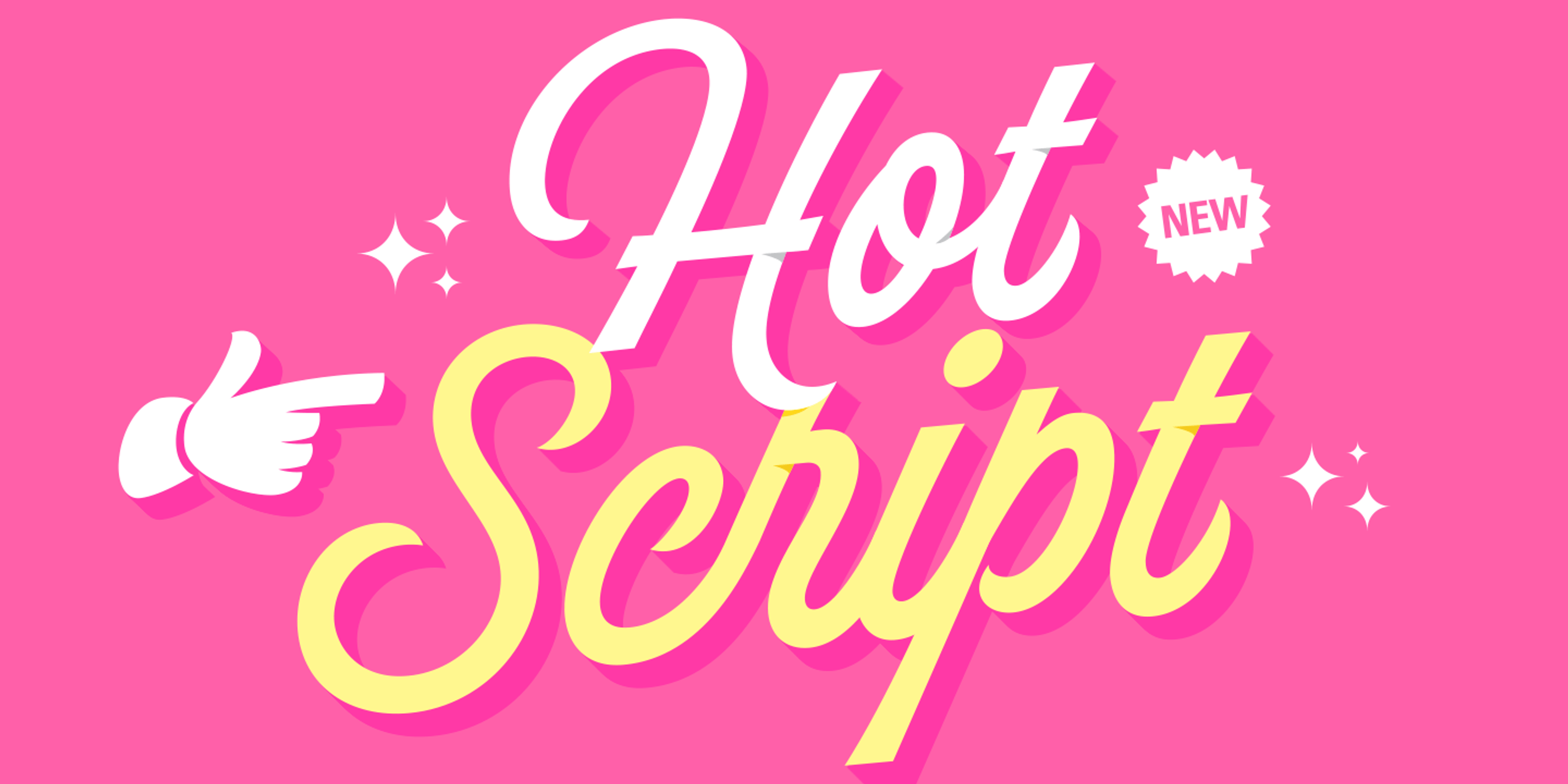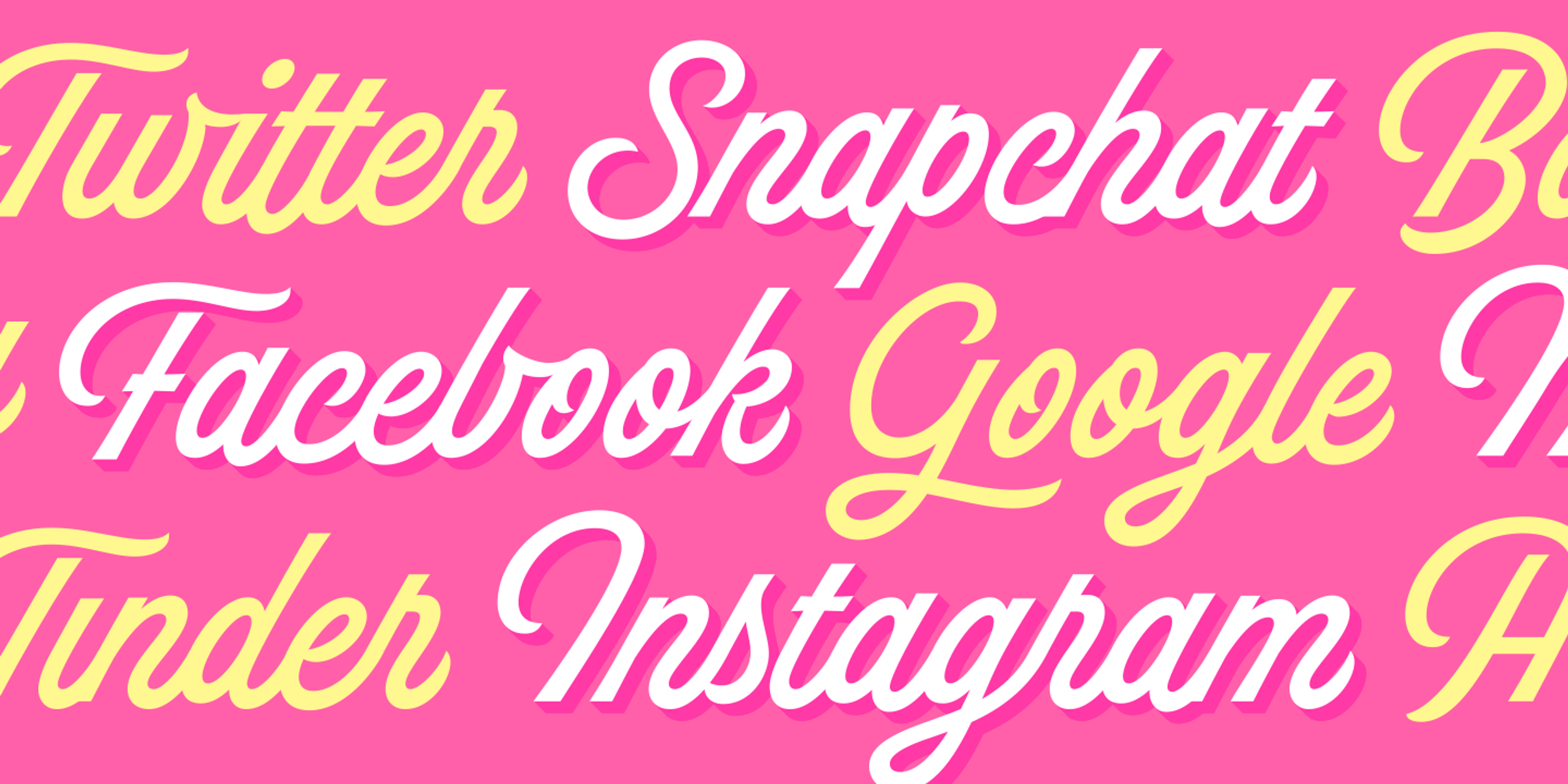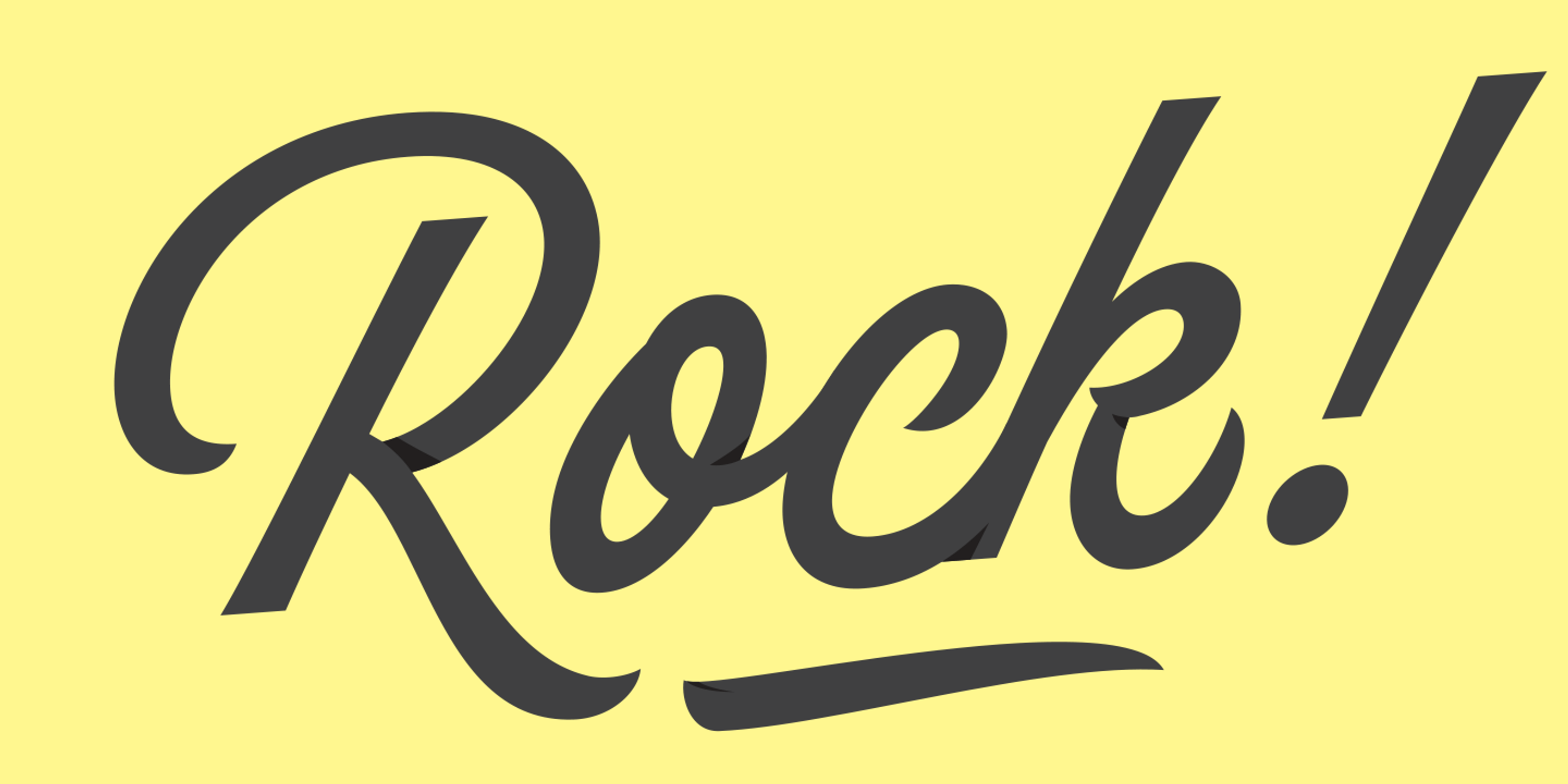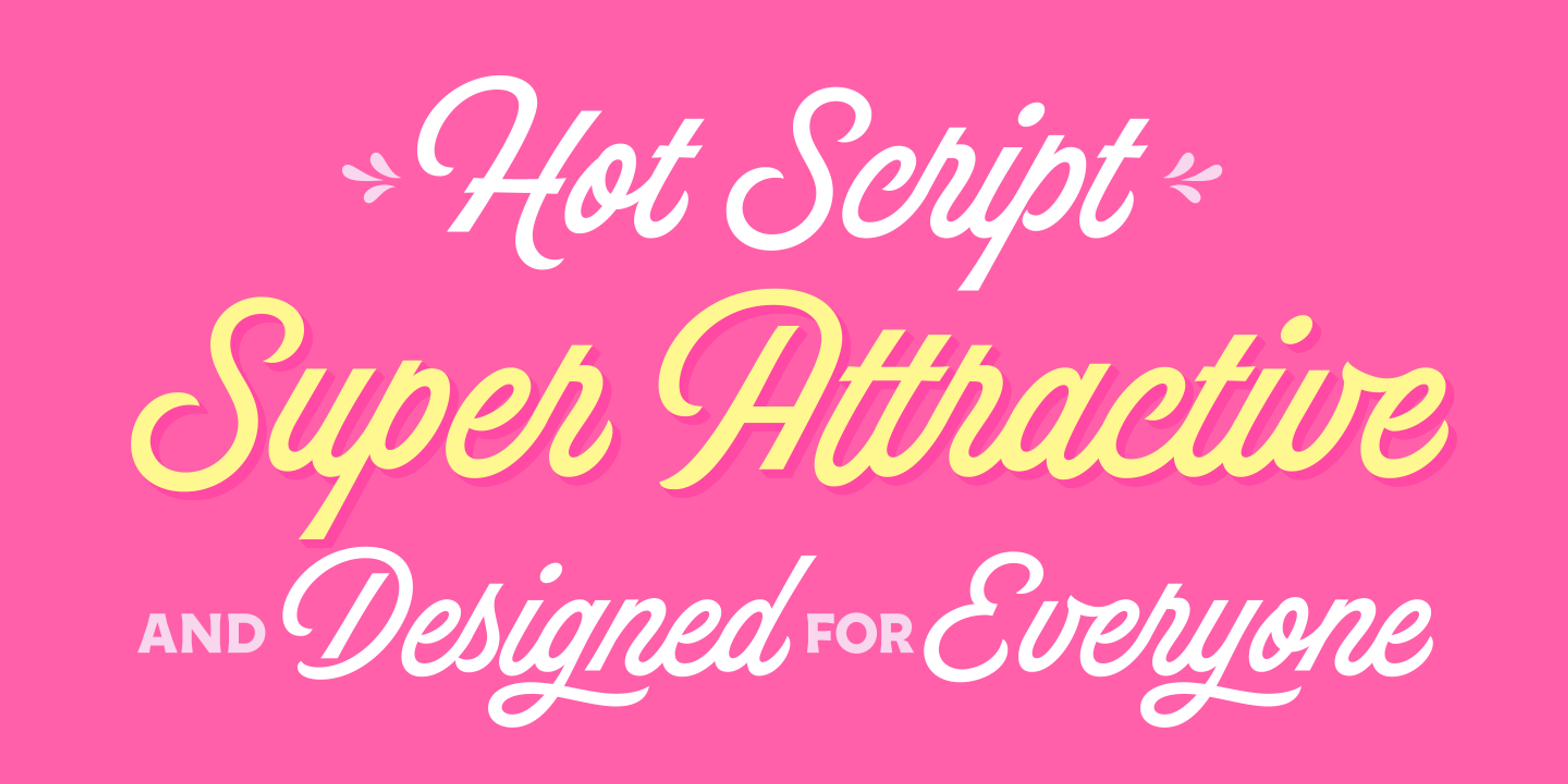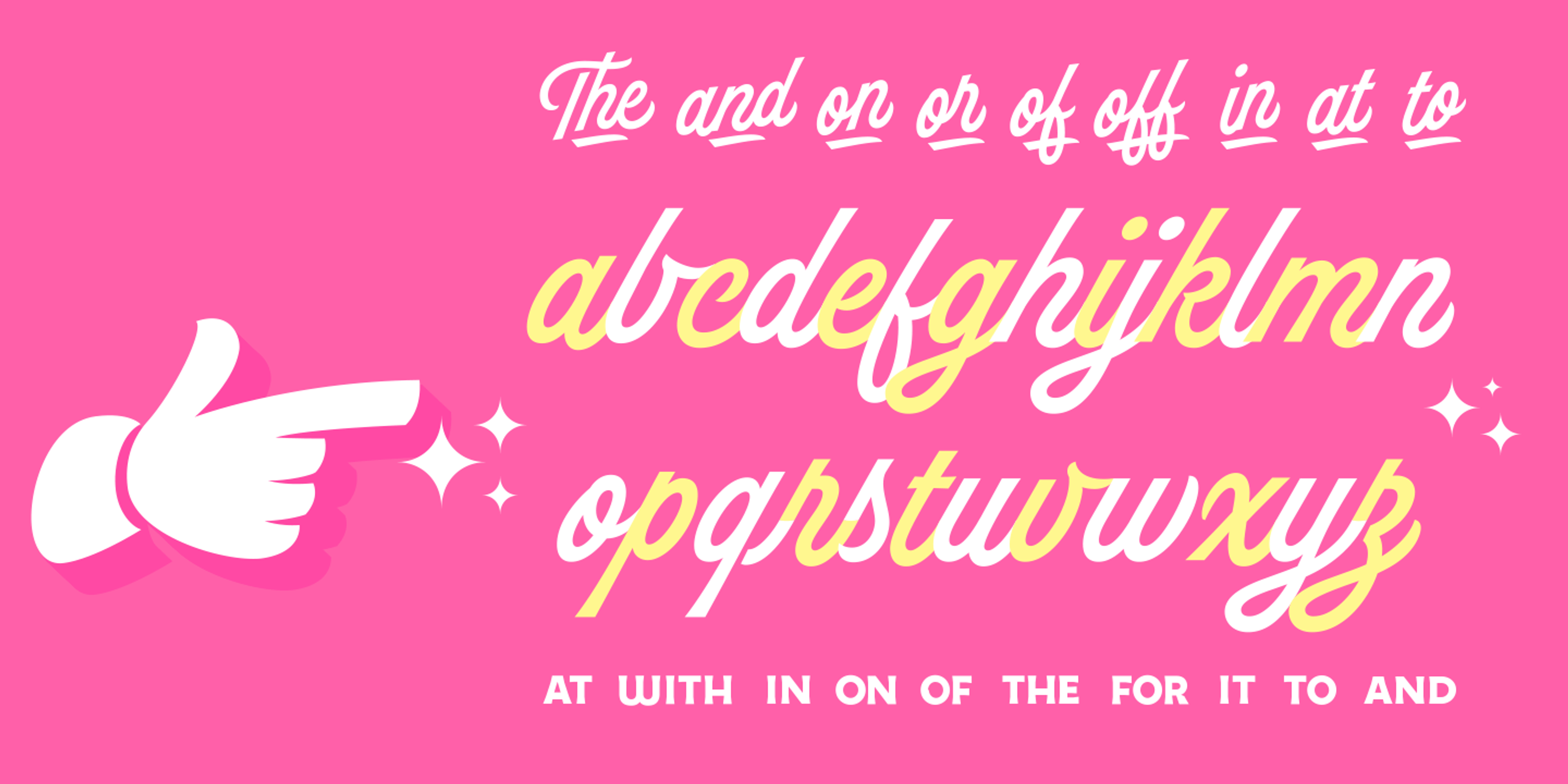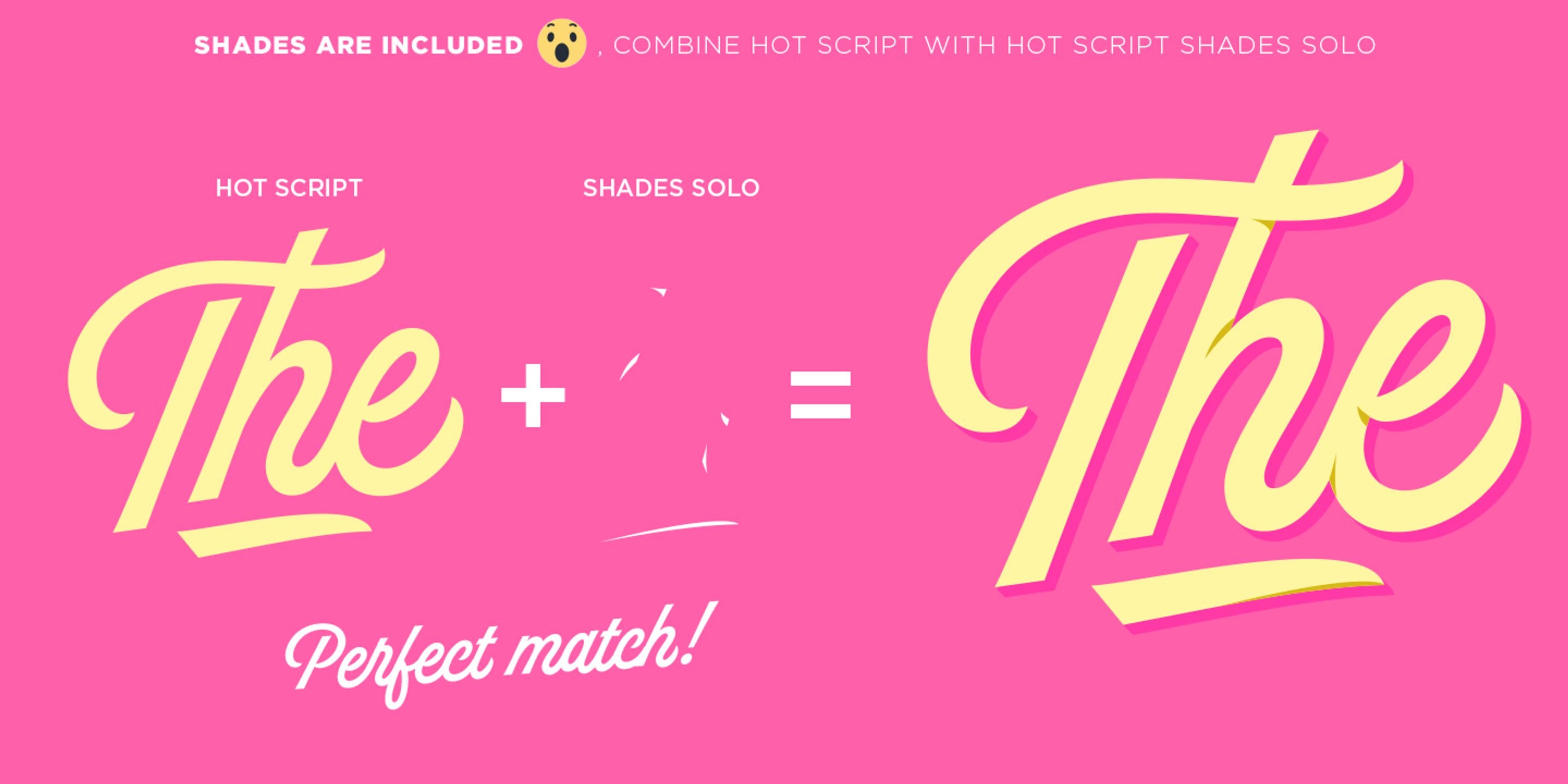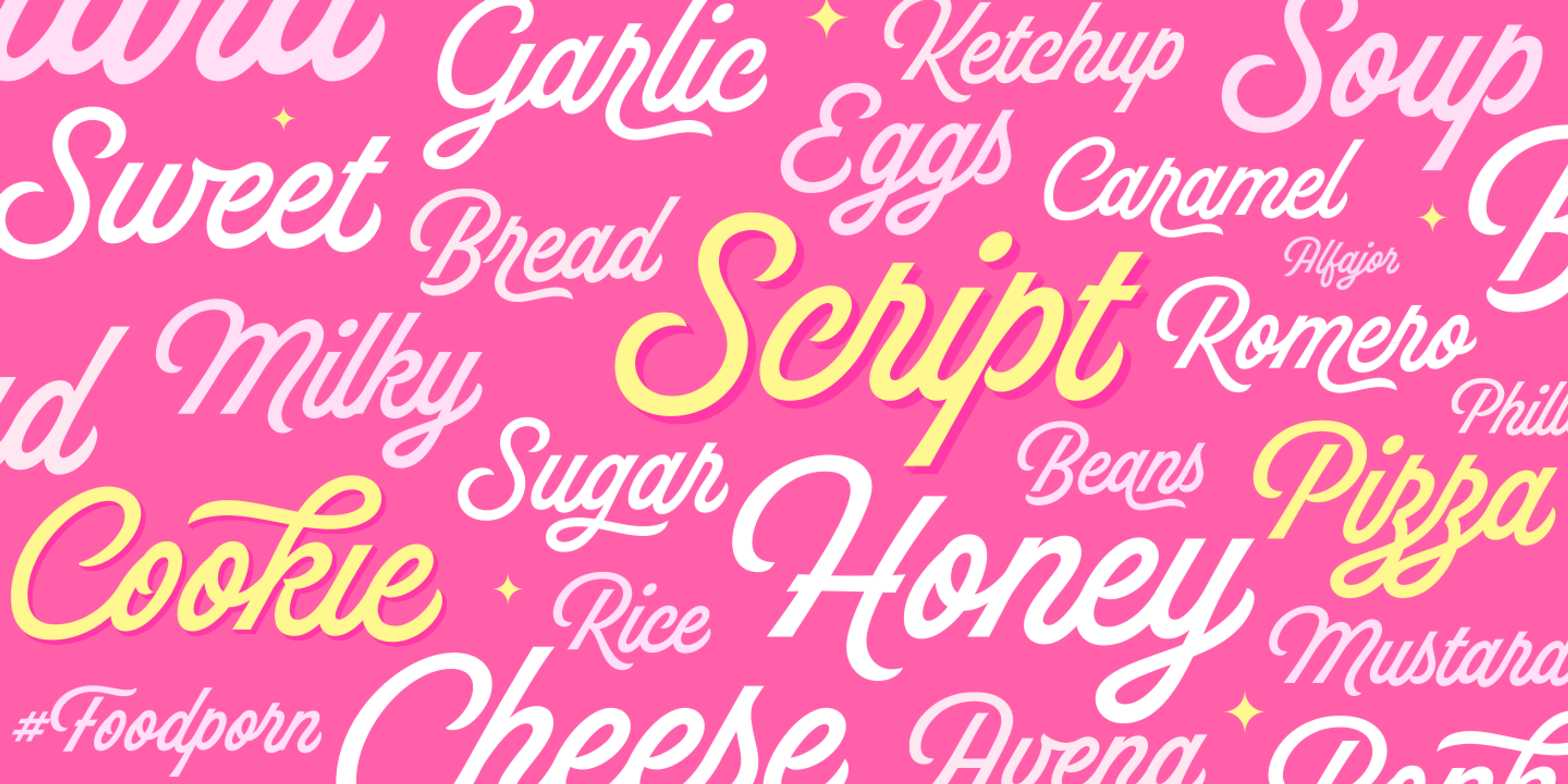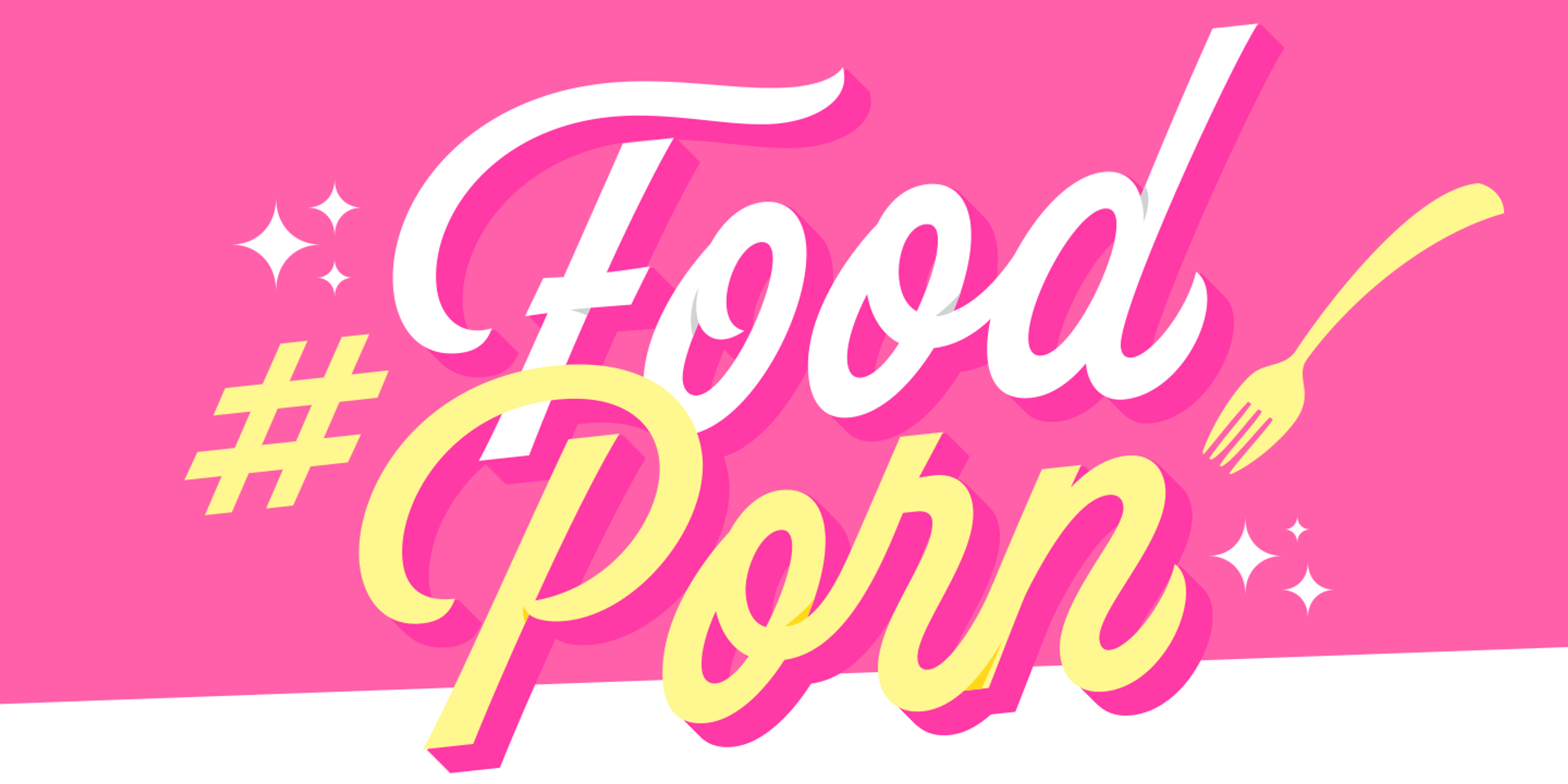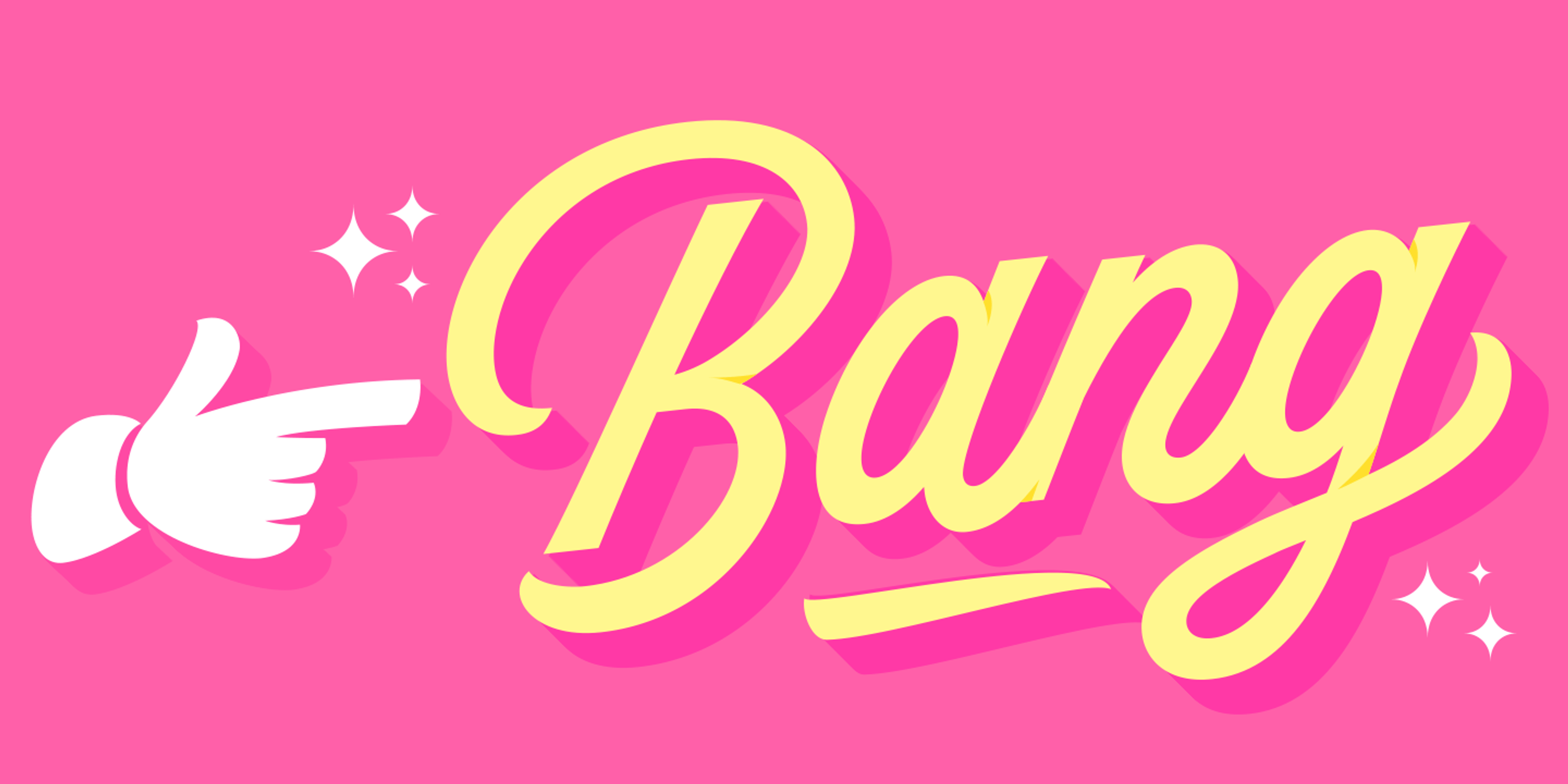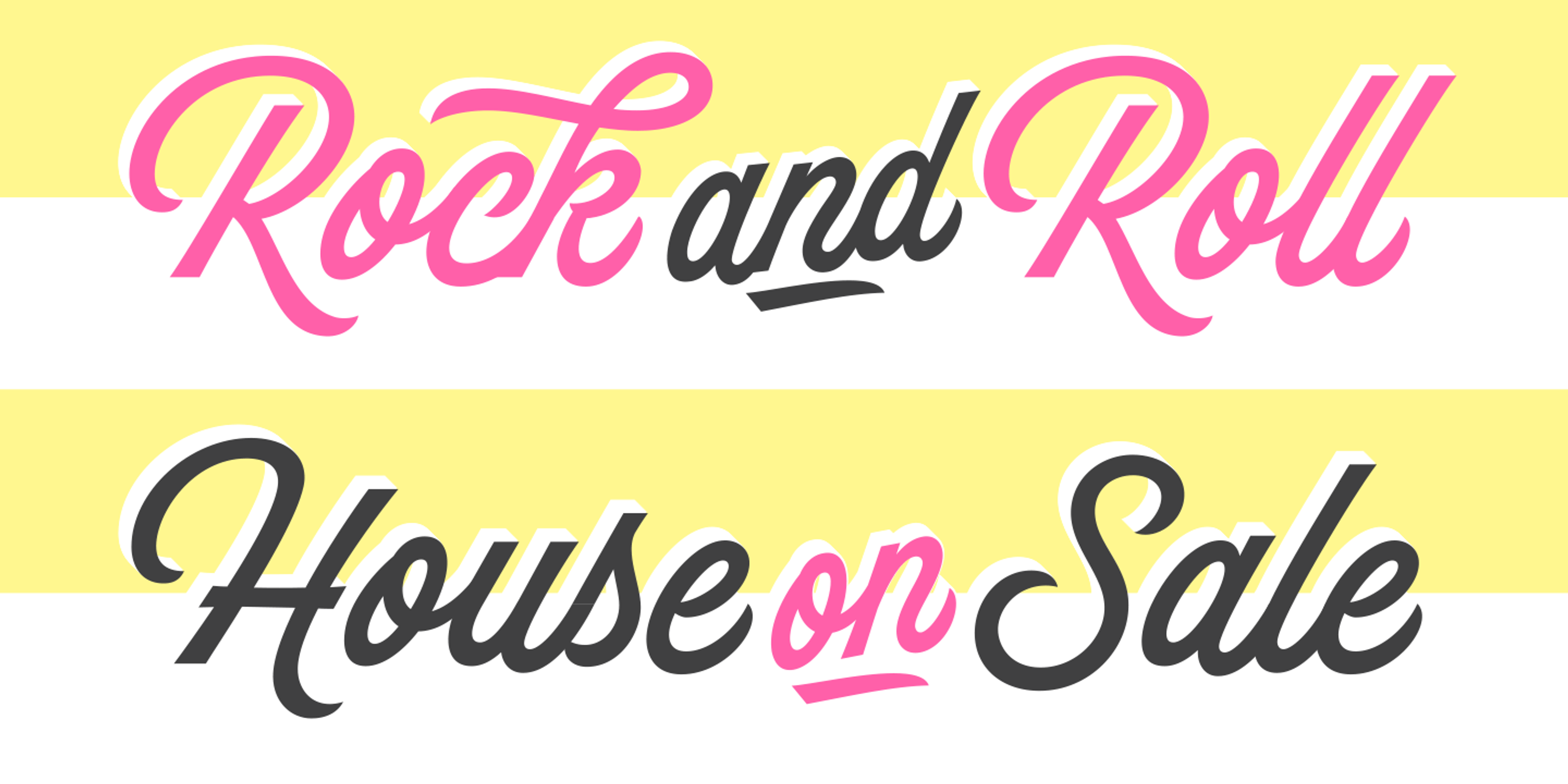
Hot Script Regular
Hot Script Shades
Hot Script Shine
Hot Script Shine Solo
Hot Script is a bold script inspired by the local signs on the walls, doors, and windows of the restaurants in Buenos Aires. Its expressive curves and handcrafted details evoke the warmth of flat brush lettering but with enough contrast to add visual flair. The abundance of alternates and dingbats combined with layering options like Shine or Shade styles offer extra impact and dimension. Hot Script is designed for versatility and is ideal for restaurant logos, packaging, or bold display headlines.
- Common Ligatures
- Discretionary Ligatures
- Fractions
- Ornaments
- Stylistic Sets
- Swashes